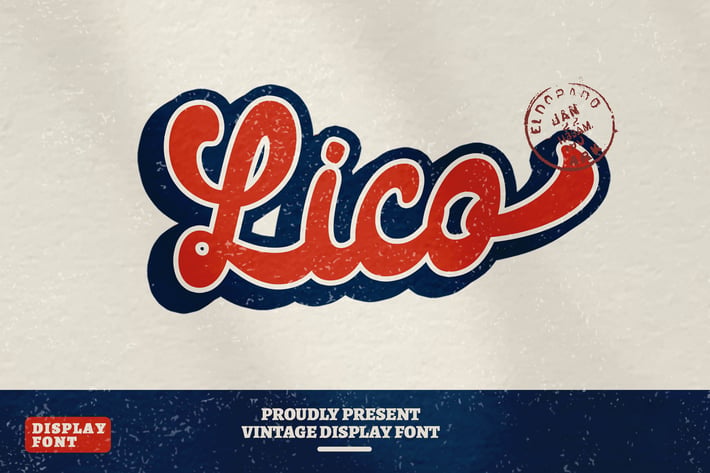
Lico - Vintage Retro Display Font
Lico - Vintage Retro Display Font.
Introducing Lico. Fun and playful retro pop display font.
Various Stylistic Alternates and Ligatures in each letter increase the uniqueness of your writing.
It's perfect for visual projects like logos and labels, branding, posters, food and drink, social media content, youtube thumbnails, mood boards, weddings, you name it.